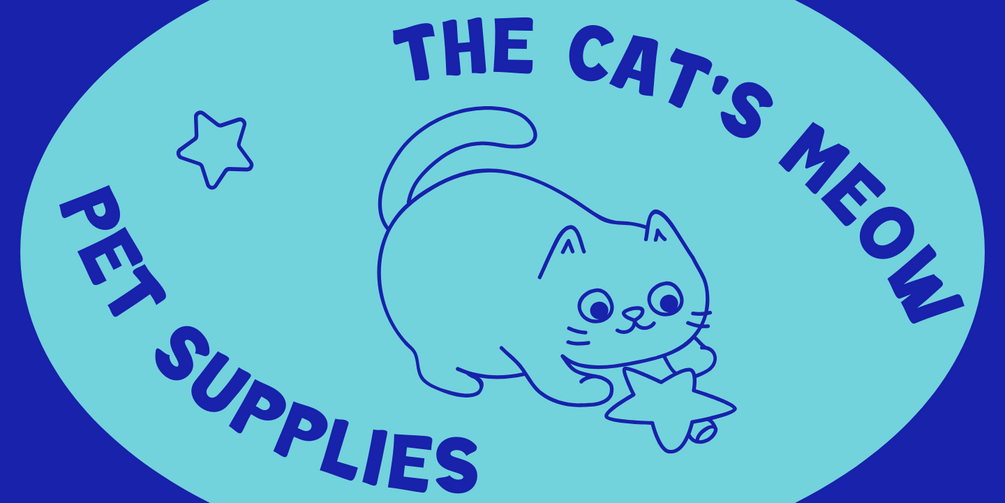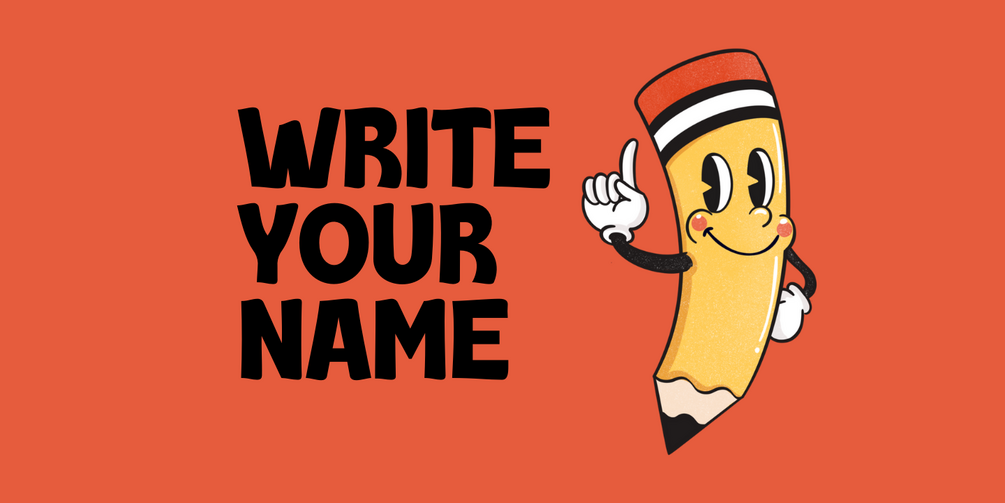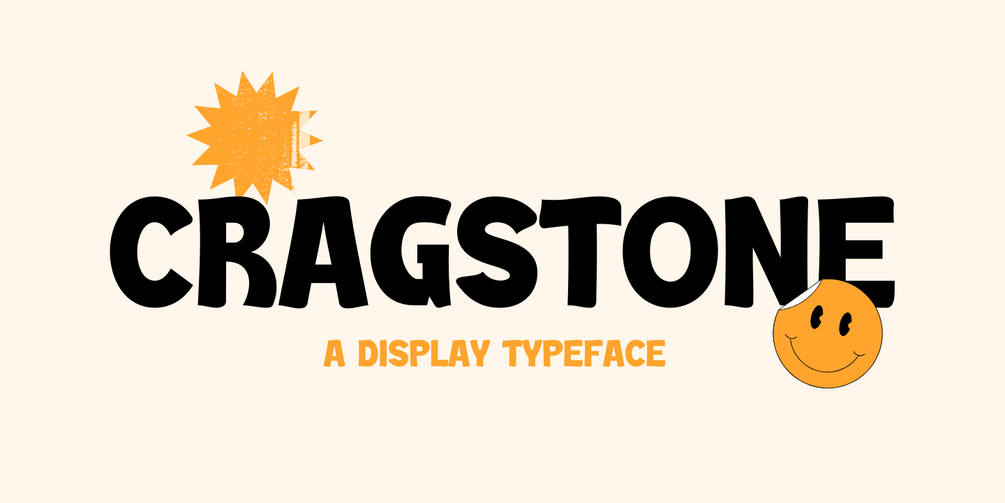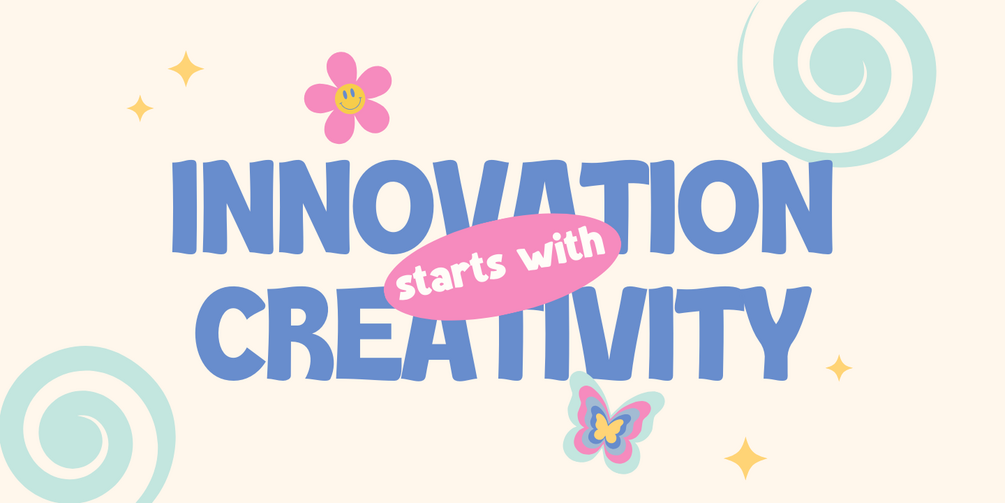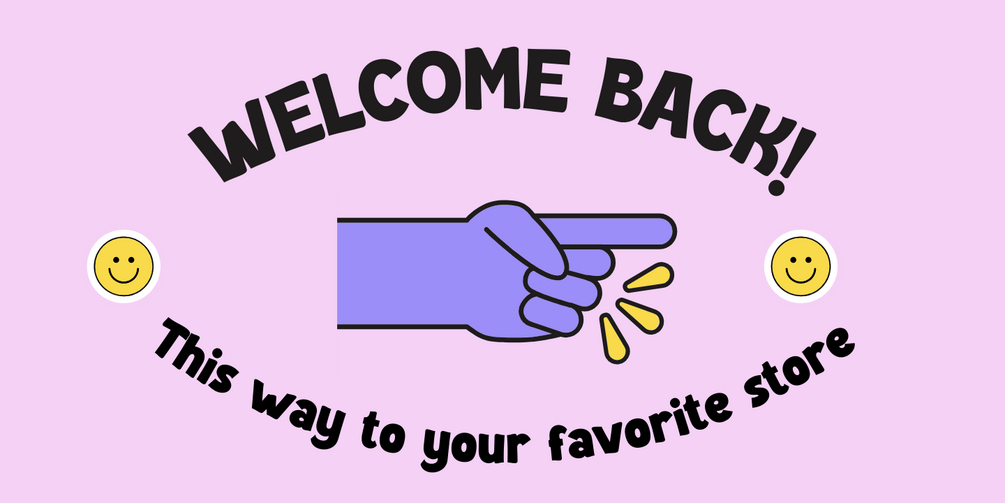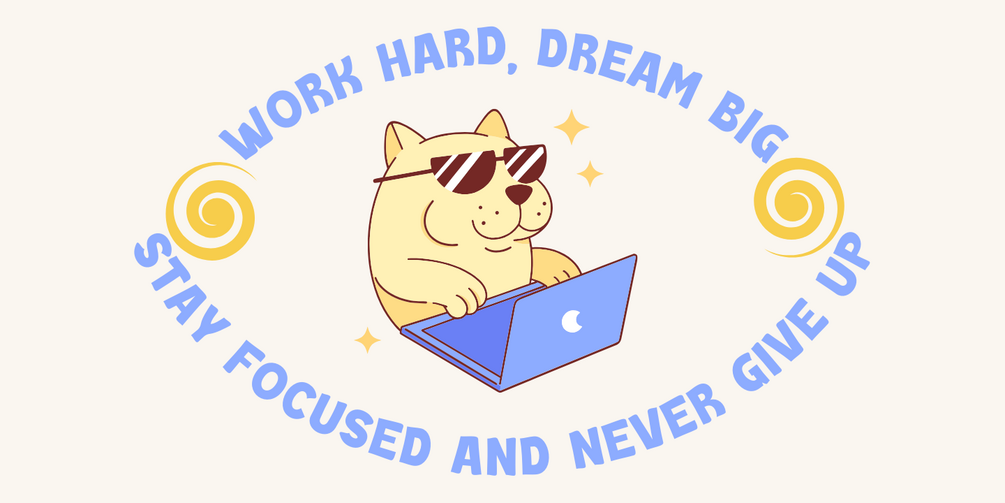
Cragstone
Cragstone is a striking display typeface designed to leave a lasting impression. With its bold and unique letterforms, Cragstone exudes strength and character, making it perfect for headlines, posters, and branding that seek to capture attention.